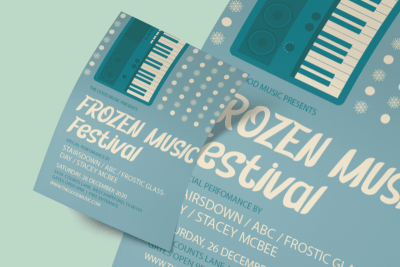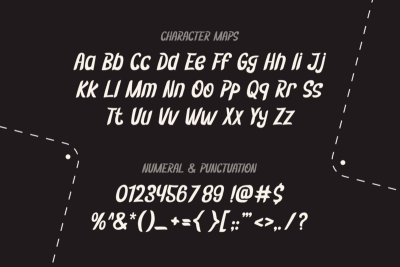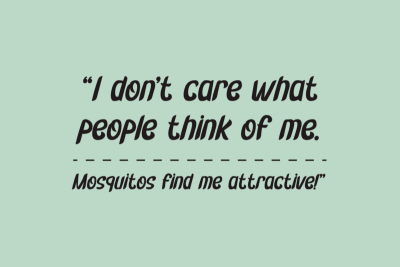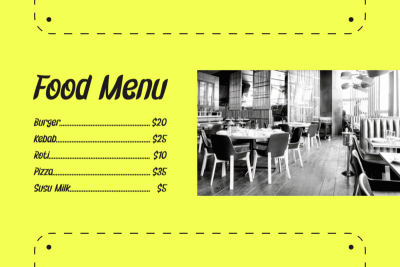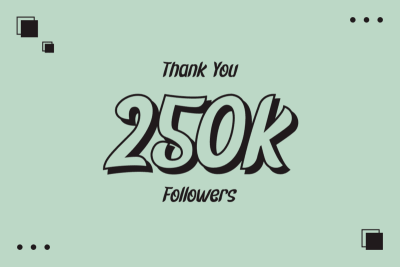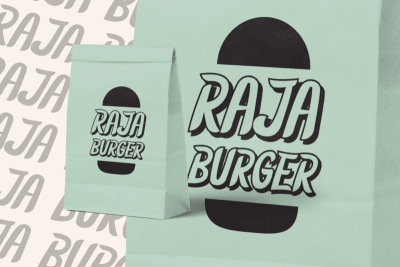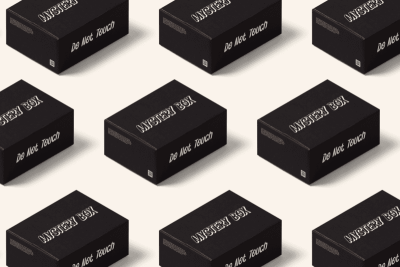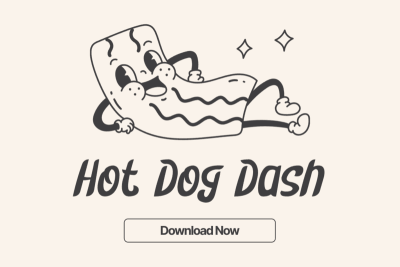
Vintage Font Signery
Signery
Vintage Font Signery is a captivating display font that combines retro flair with playful elegance. This bold typeface brings fun and nostalgia to your projects, making it ideal for designers who want a unique style. With smooth curves and distinctive letter shapes, Signery adds lively character to branding, posters, and social media graphics. Moreover, its retro-inspired design creates an eye-catching look, helping your message stand out with a fresh yet timeless feel. Therefore, Signery’s vintage aesthetic and personality make it a versatile addition to any designer’s toolkit.
Signery’s friendly style works especially well for brands in the creative, fashion, and lifestyle industries. It easily engages audiences and conveys warmth, inviting people to connect with the design. As a result, this font is perfect for projects that aim to make a lasting impression with an inviting tone. Whether in bold headlines or small design accents, Vintage Font Signery captures attention and adds a unique flair to any composition. With Signery, you can create designs that are both visually appealing and evocative of nostalgia.
Versatility and Applications of Vintage Font Signery
Vintage Font Signery offers impressive versatility for a variety of creative applications. It truly shines in branding, packaging, and advertising, where bold visuals are essential. Furthermore, its retro style works well across digital and print media, from posters to t-shirt designs and product labels. Its friendly curves and playful structure enhance logos, giving brands a nostalgic yet modern feel that appeals to a wide audience.
Despite its boldness, Signery doesn’t compromise readability, which makes it easy to use in diverse design contexts. Its legibility keeps your message clear in both large and small formats. Additionally, each letterform creates harmony and visual interest, working well alone or paired with other elements. Signery’s charm adds character to many projects, making it a must-have for designers aiming for a standout look. Whether you’re designing a logo, a campaign, or stylish packaging, Signery adds just the right amount of flair.
• Basic Latin A-Z and a-z, Numbers, Punctuation